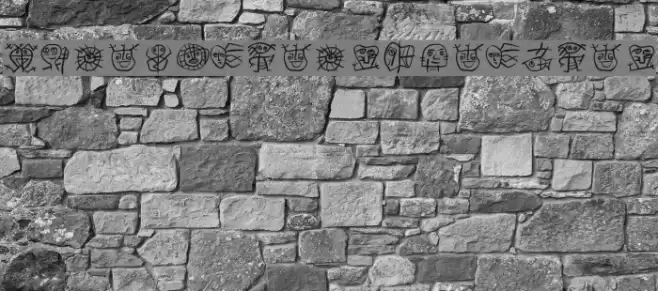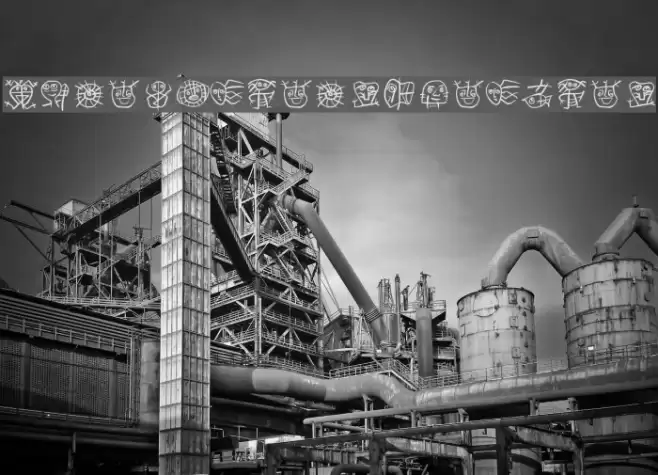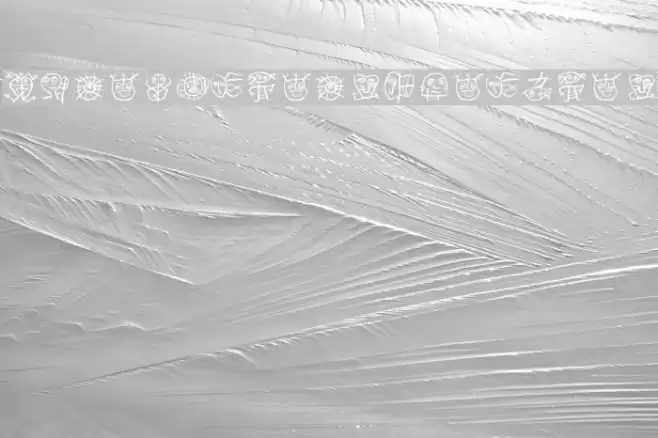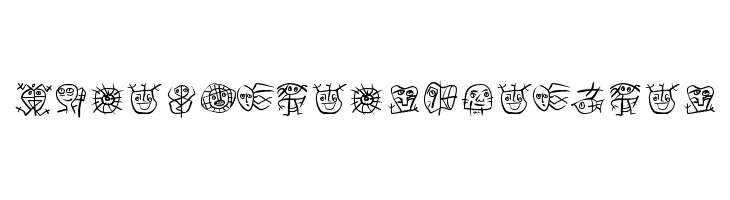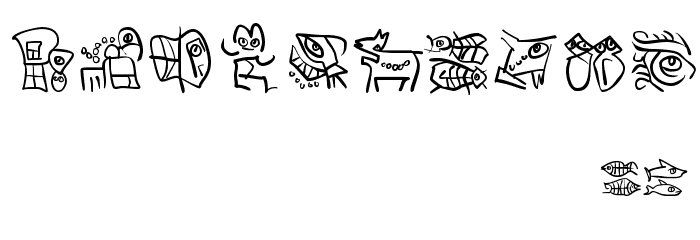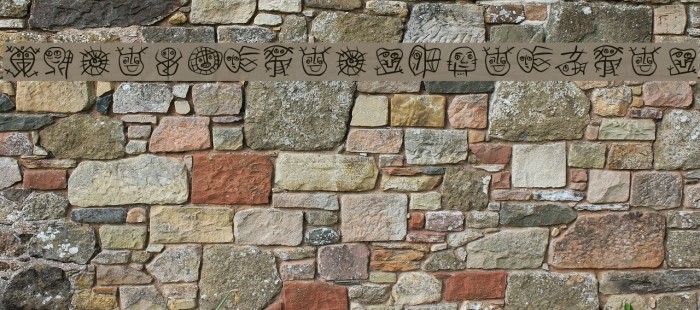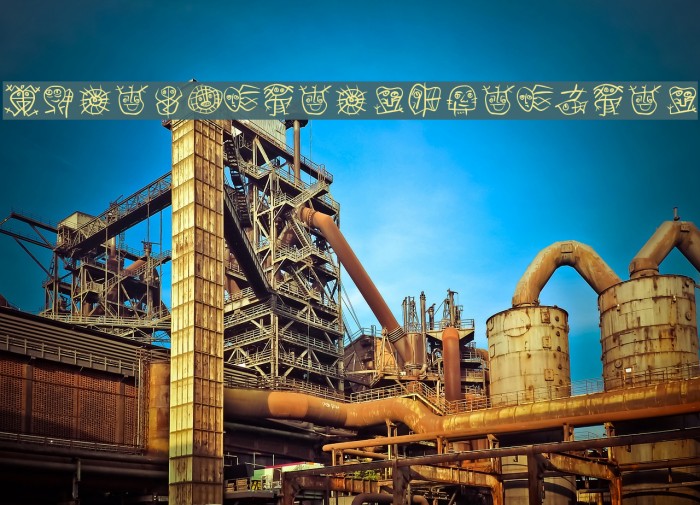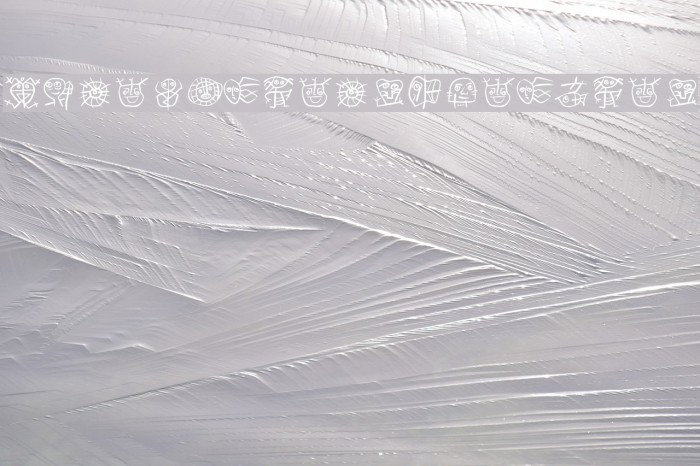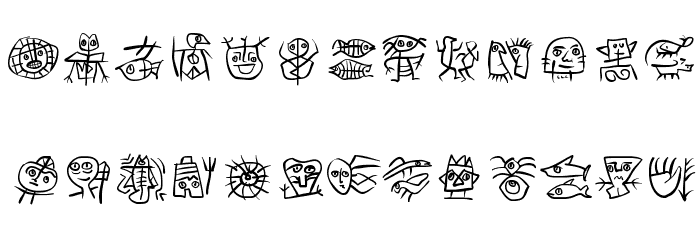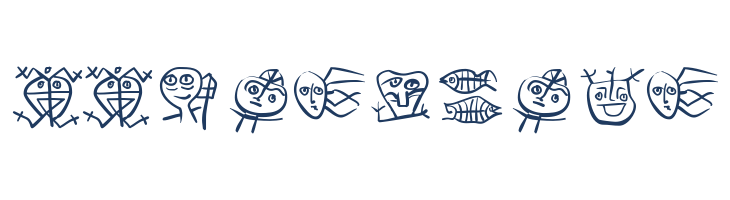
ForefathersSketches Font
ForefathersSketches Description
This font is a collection of whimsical, sketch-like characters that resemble ancient or tribal art. Each character is unique, featuring abstract and playful designs that evoke a sense of creativity and spontaneity. The strokes are uneven and organic, giving the font a hand-drawn appearance. The characters are not uniform in size or shape, adding to the eclectic and artistic feel. This font is more of an artistic expression than a traditional typeface, with each symbol telling its own story through intricate details and imaginative forms.
A whimsical, sketch-like font with abstract, tribal-inspired characters from Uncategorized fonts.
- Proposed Projects: Ideal for creative projects such as art installations, children's books, unique branding, or any design that requires a playful and artistic touch.
- Character Spacing: Varied
- Contrast:
- Overall Style: Artistic, Tribal, Whimsical
- Use Case: Artistic designs, Creative projects, Branding